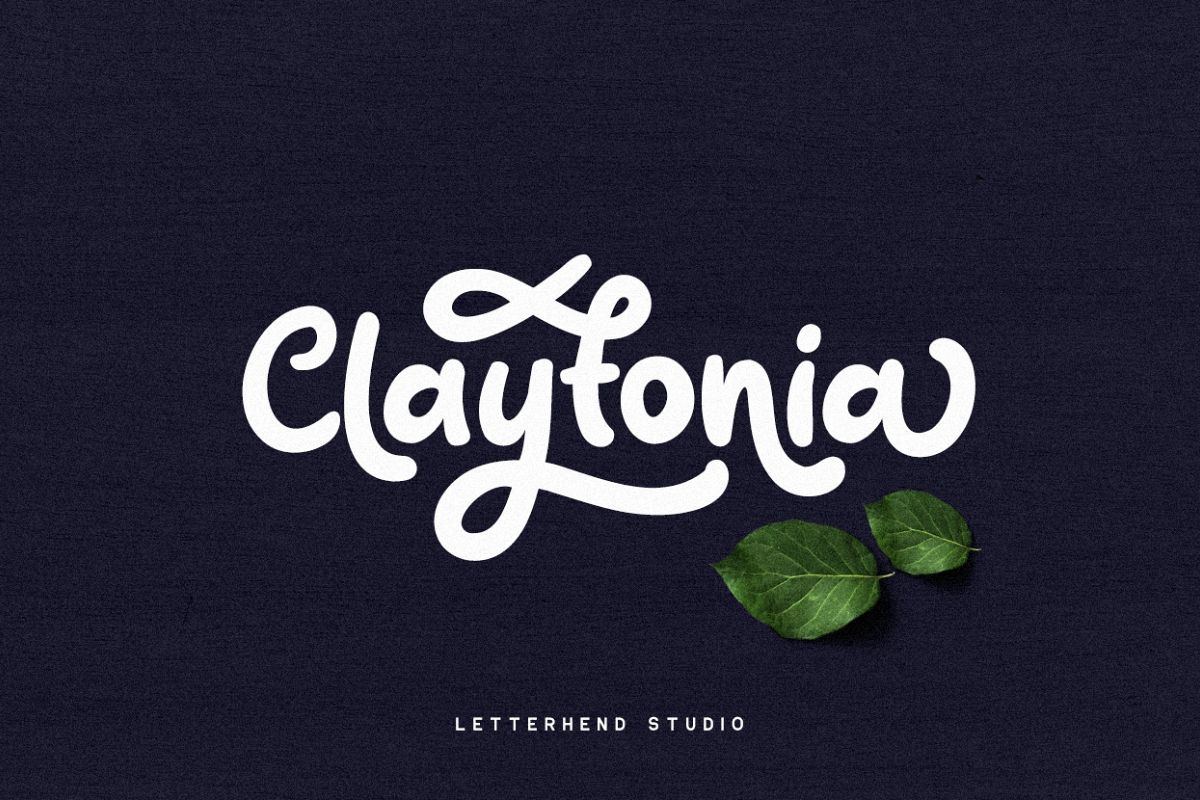
Claytonia Bold Script
Claytonia-Regular
Introducing, Claytonia.
Claytonia is a bold script typeface which is simple yet casual. Made by hand written with many opentype features that you will like. This font is perfect as a logo, quotes, apparel design, wedding invitation, and many more. You can play with the ligatures, stylistic alternate, swash, etc to create your own customized lettering. This font is also support multi language